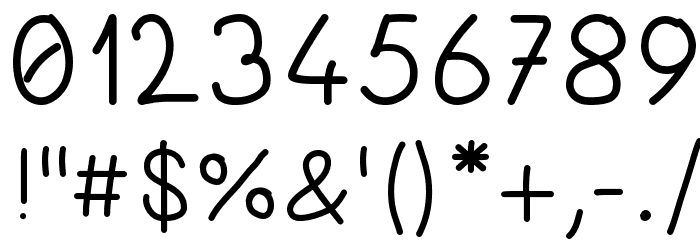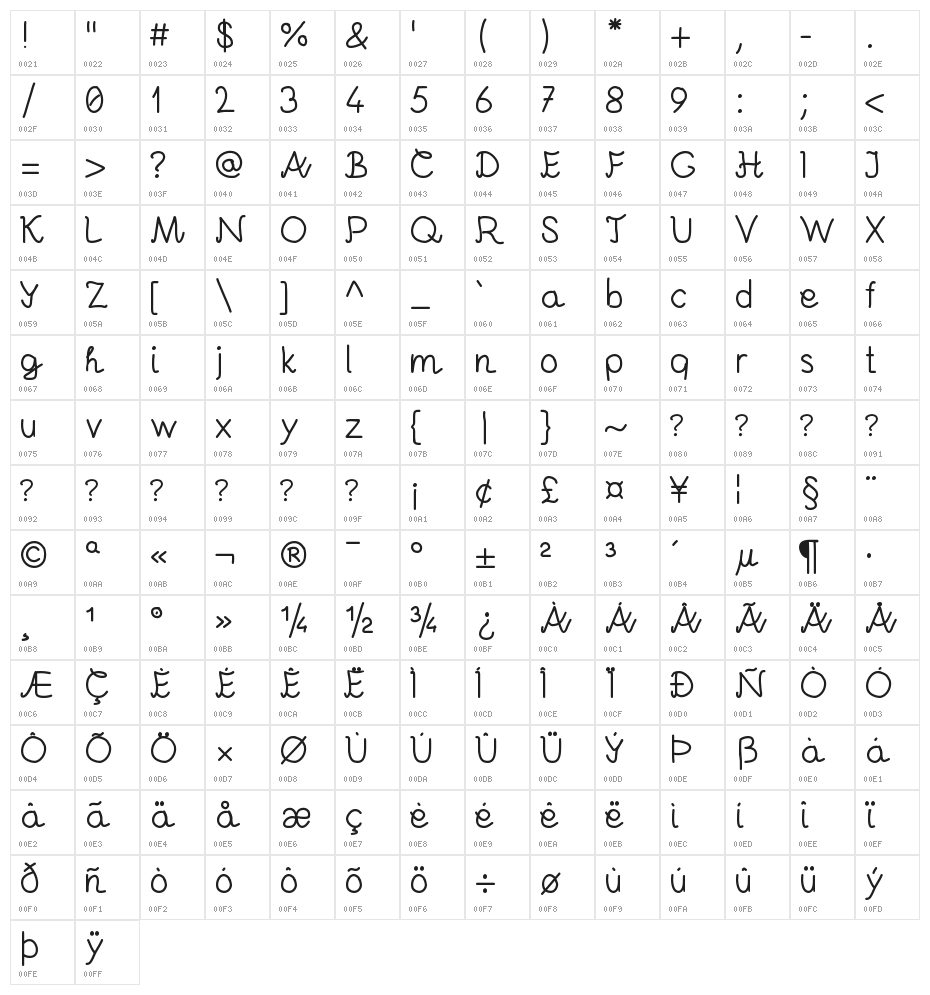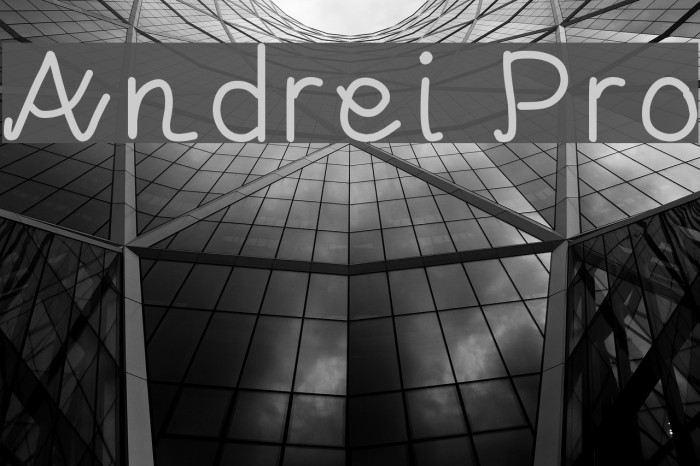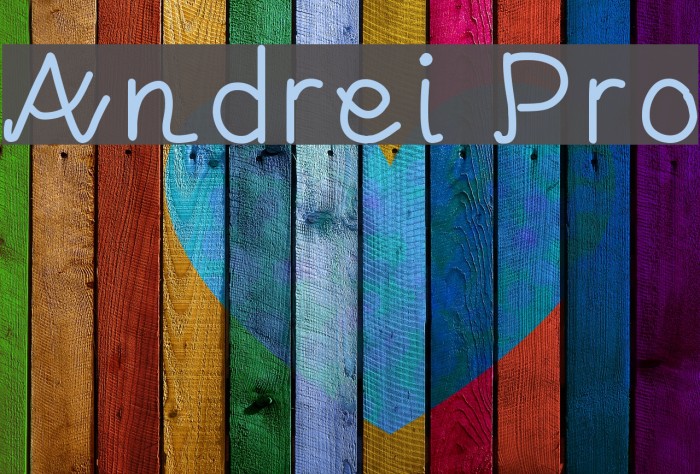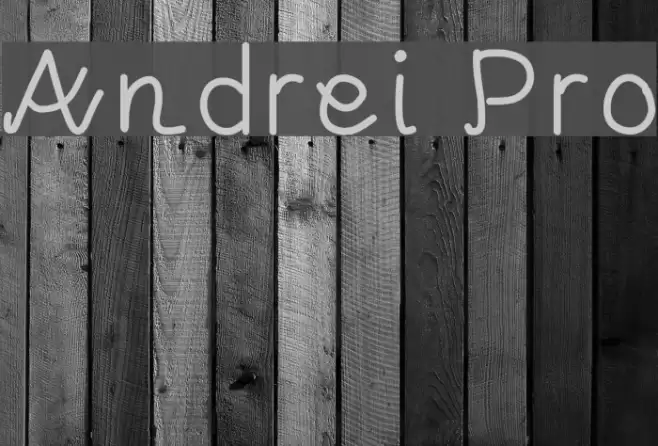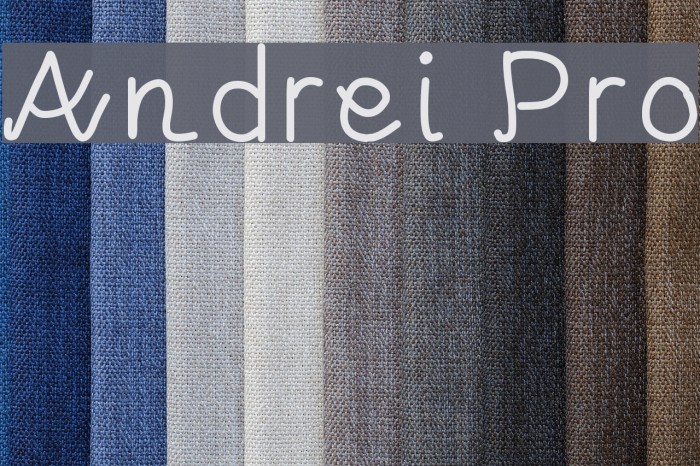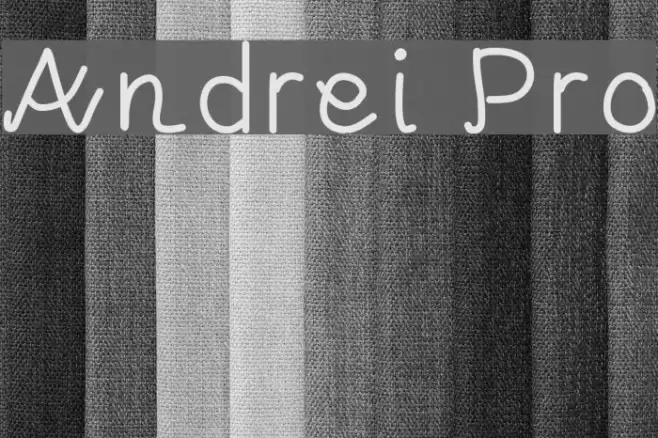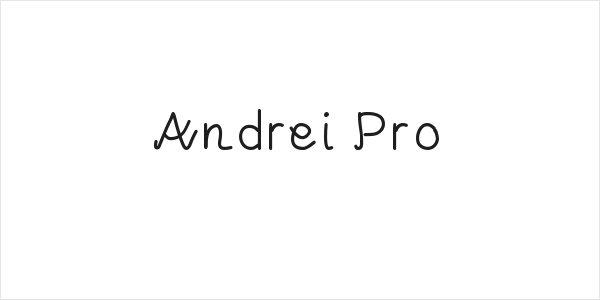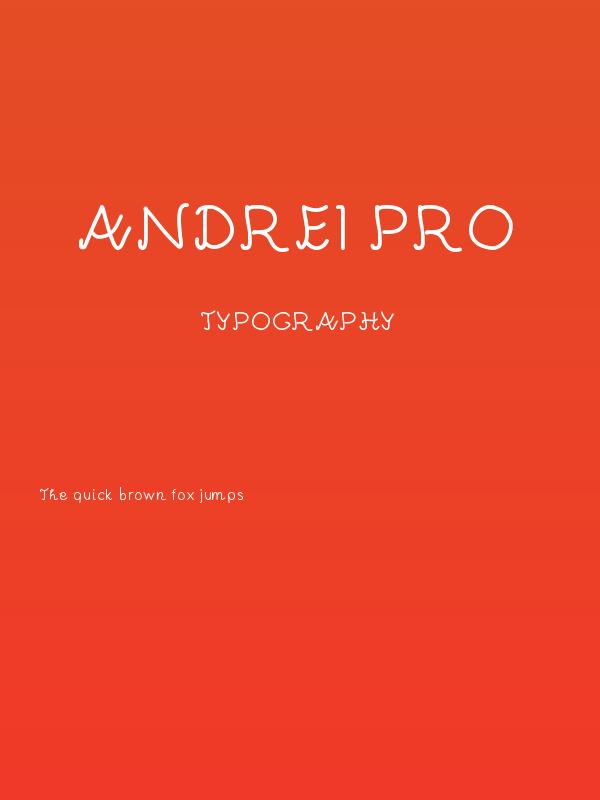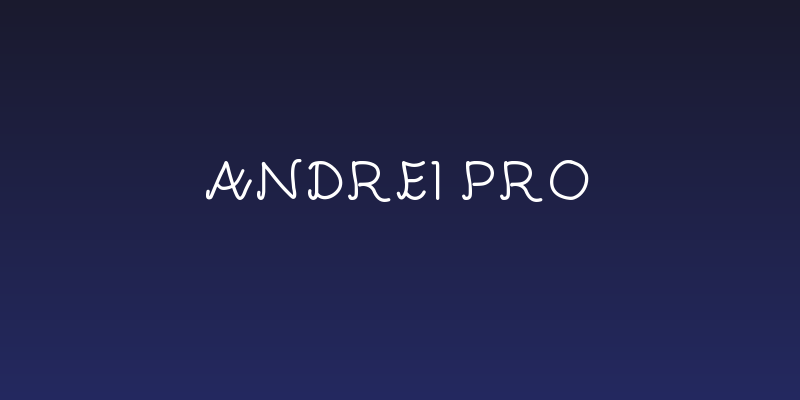
Andrei Pro Font
Andrei Pro Description
This font features a playful and whimsical handwritten style, characterized by its smooth, flowing curves and slightly irregular shapes. The uppercase letters are bold and rounded, while the lowercase letters maintain a consistent, friendly appearance. The numerals are clear and easy to read, with a similar playful touch. Special characters are well-integrated, maintaining the overall aesthetic. The font's informal and approachable nature makes it suitable for creative projects that require a personal touch.
| Use Case | Logos, Invitations, Creative projects |
| Proposed Projects | Ideal for greeting cards, children's books, playful branding, and creative invitations. |